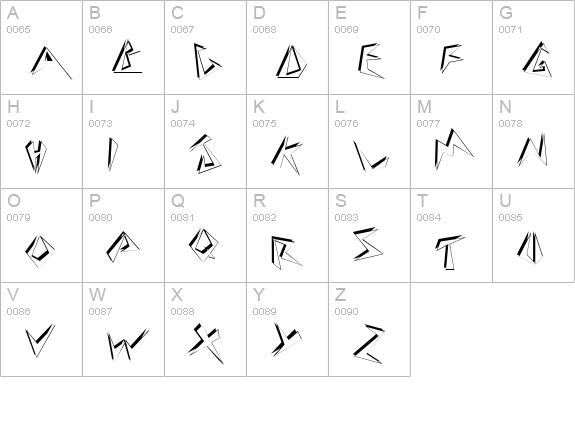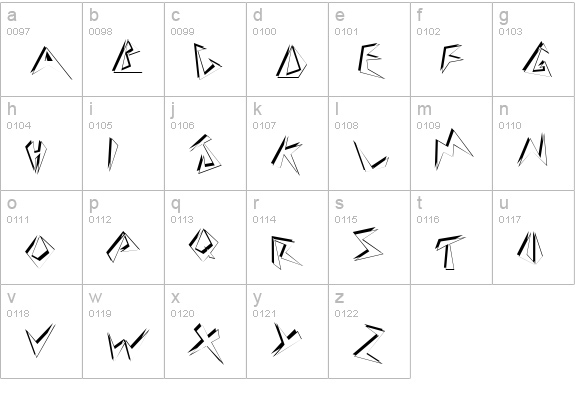
Beehive: Font Details
Beehive font is a charming and versatile typeface that brings a touch of whimsy to your designs. With its unique and playful letterforms, Beehive is perfect for adding a fun and friendly vibe to any project. This font is suitable for a variety of design purposes, from logos and branding to invitations and social media graphics. What's even better is that Beehive font is completely free to download at FontsMarket.com. You can easily access this delightful typeface and incorporate it into your creative projects without any cost. Don't miss out on the opportunity to enhance your designs with the cheerful and distinctive Beehive font – download it for free today!